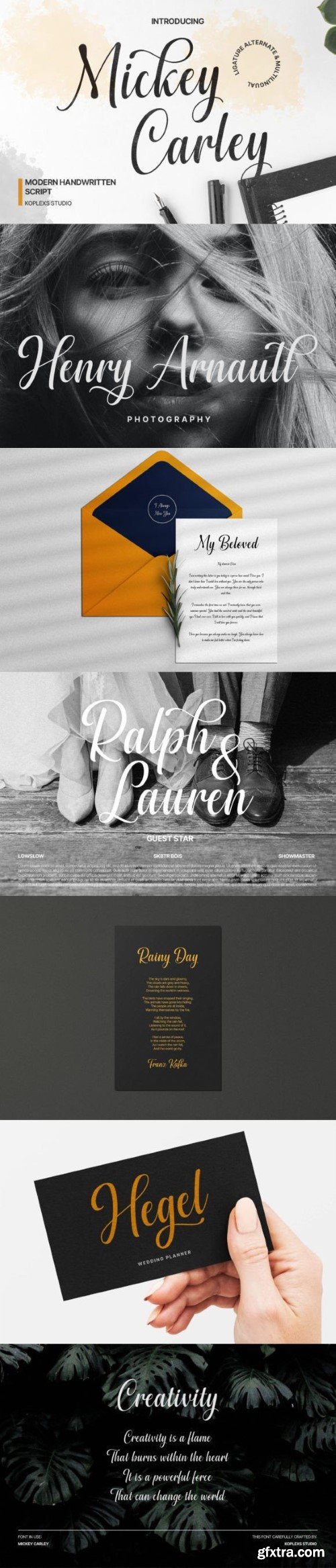
米基·卡莱字体
Introducing “Mickey Carley Modern Handwritten Script Font” – where timeless elegance meets contemporary flair. Unleash the power of personalized expression with this meticulously crafted font that seamlessly blends sophistication with a touch of whimsy. Immerse yourself in the fluid strokes and graceful curves of Mickey Carley, a handwritten script font that transcends traditional boundaries. Elevate your projects with a font that exudes charm, making every word a work of art. The inclusion of ligatures and alternates adds a layer of versatility, allowing you to tailor your text to perfection.